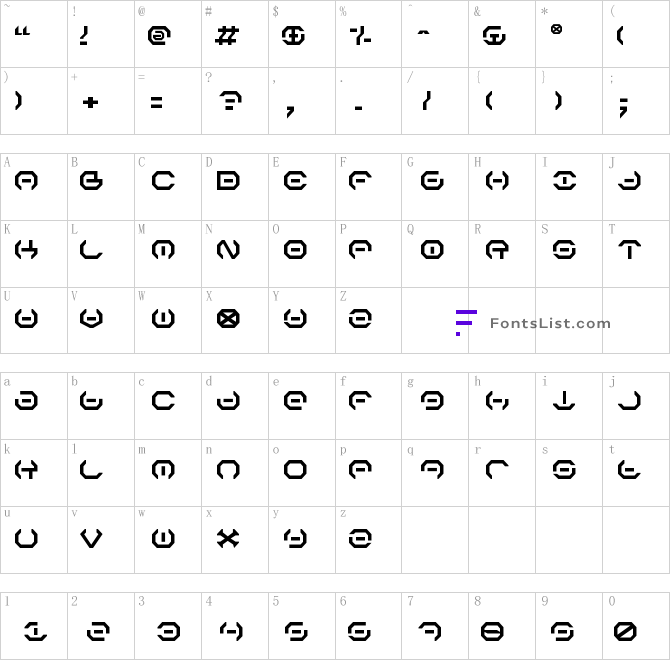
- Font Name:Alpha Sentry
Alpha-Sentry-copy-3-.ttf is a very beautiful artistic font, Alpha-Sentry-copy-3-.ttf is widely used in the design and printing of various books and pictures,Alpha-Sentry-copy-3-.ttf has a strong visual impact,Alpha-Sentry-copy-3-.ttf is a commonly used font in newspapers, magazines and books, and is used in posters, e-commerce Poster design, store design, logo design, font design and other fields.Alpha-Sentry-copy-3-.